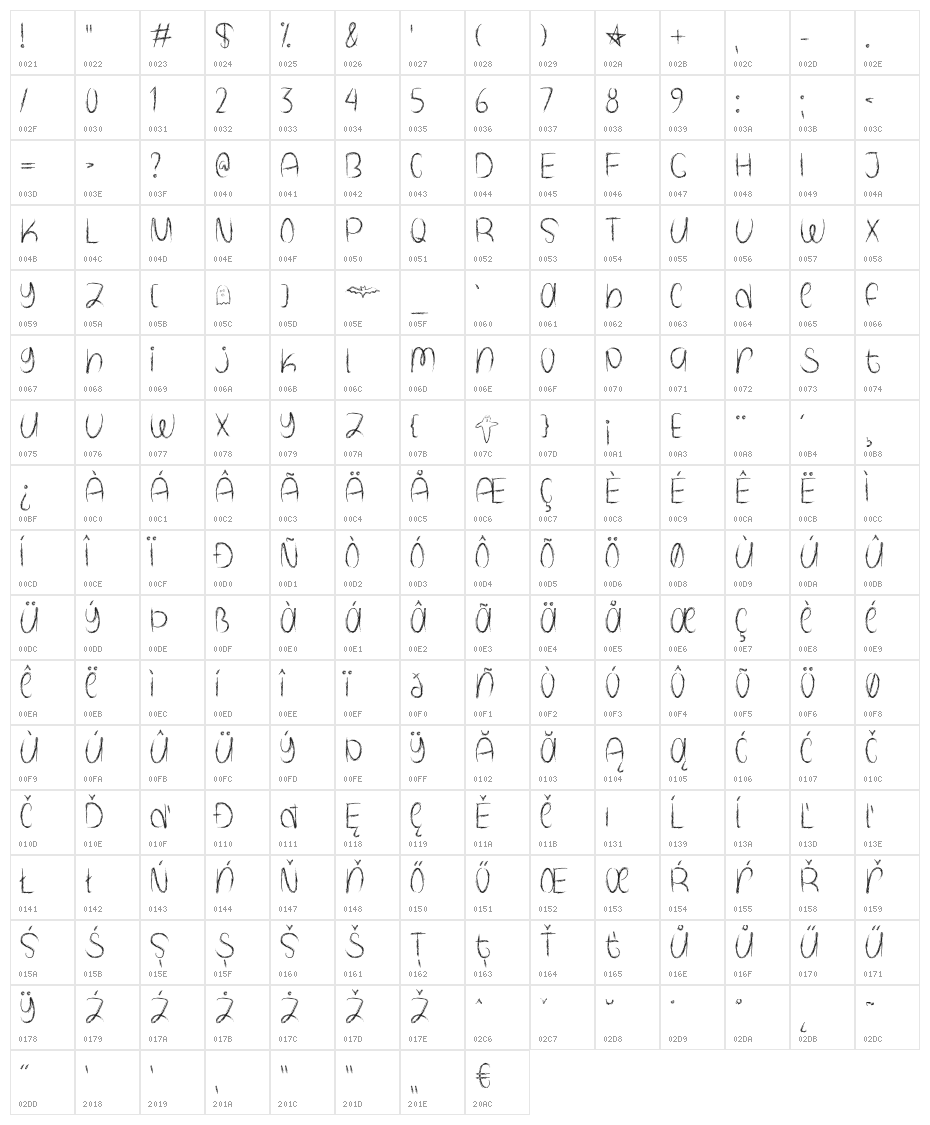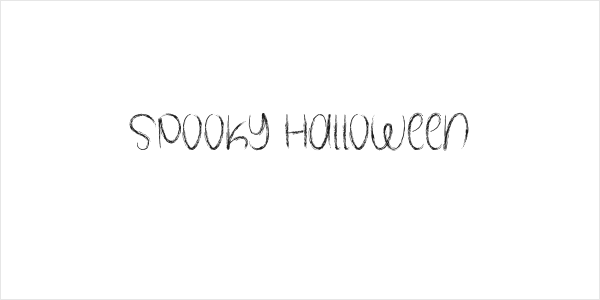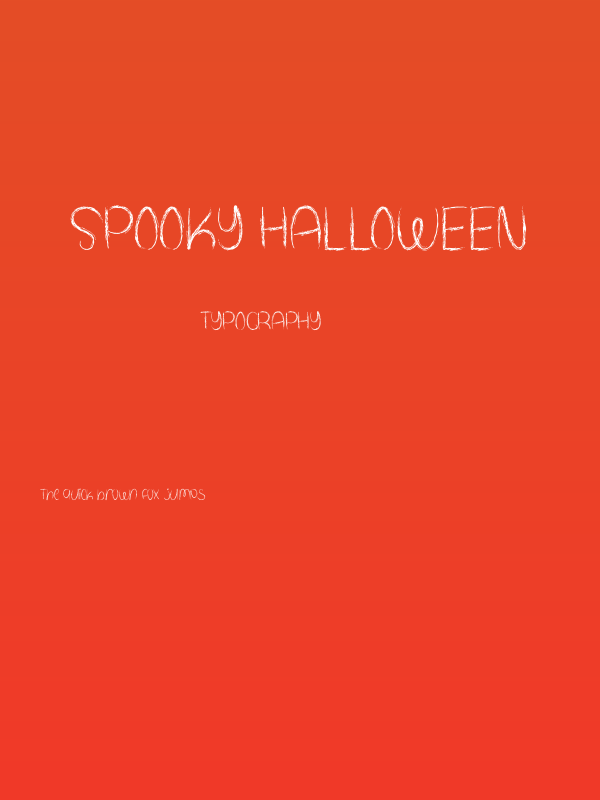
Spooky Halloween Font
Spooky Halloween Description
This font exudes a spooky and eerie vibe, perfect for Halloween-themed projects. The letters have a rough, scratchy texture that resembles hand-drawn strokes, giving it a haunted, ghostly appearance. The uneven lines and irregular shapes add to its unsettling charm, making it ideal for creating a chilling atmosphere. The font maintains a consistent style across uppercase, lowercase, numbers, and special characters, ensuring a cohesive look. Its unique design captures the essence of mystery and fear, making it a standout choice for any project that aims to evoke a sense of the supernatural.